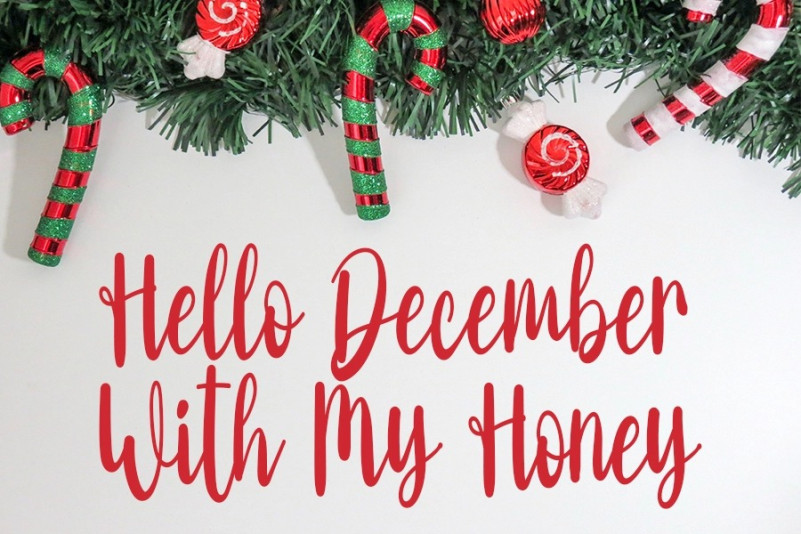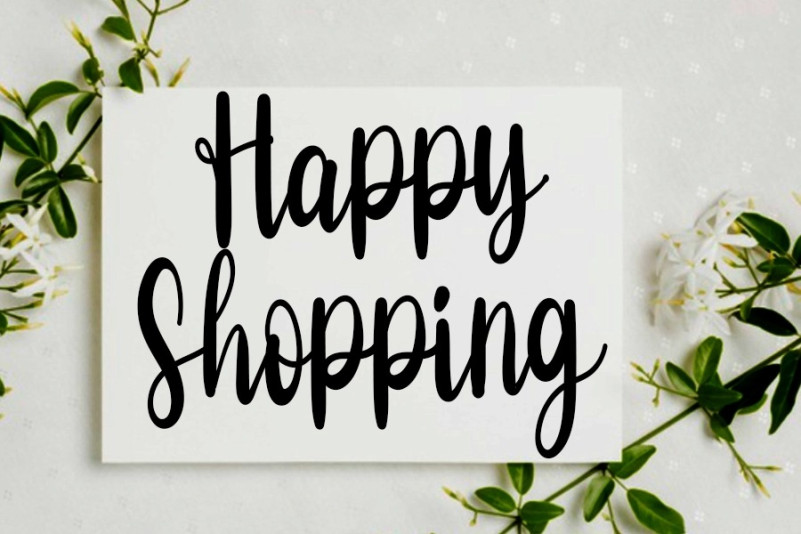
Charismatic Christma Font
Charismatic Christma Script Font, is a beautiful and charming handwritten font. It is suitable for various business needs, including shirt designs, logos, banners, and others. Apart from that, this font is easy to use on Windows or Mac OS devices. The beauty of this font will make your business look beautiful in the market.